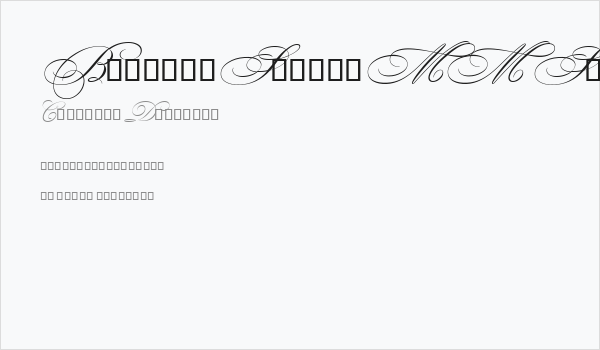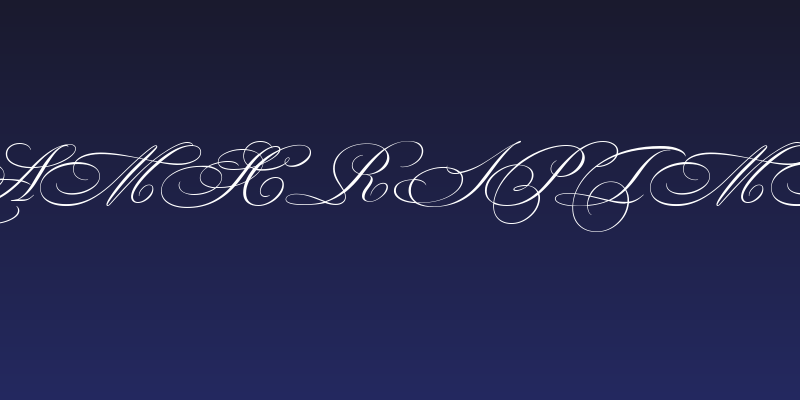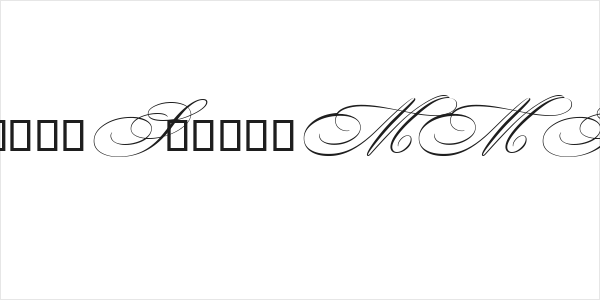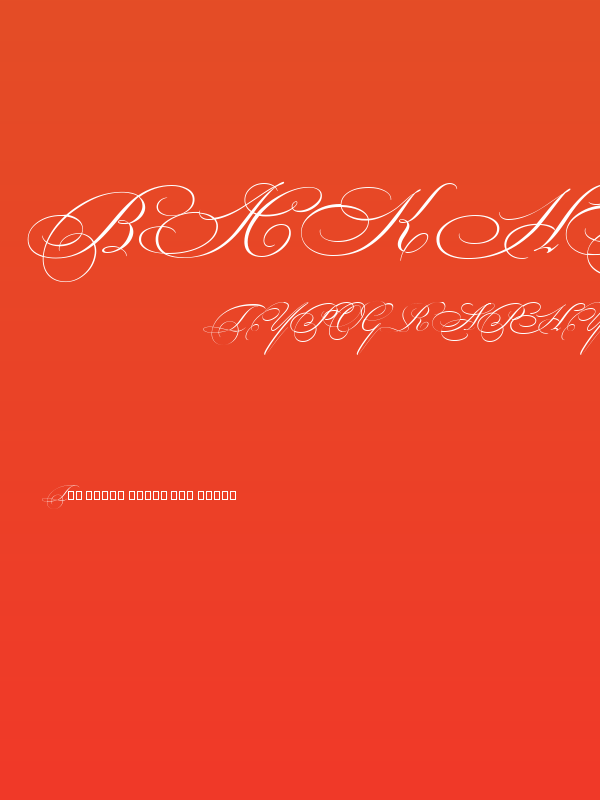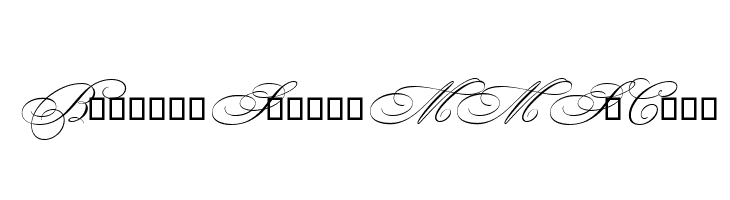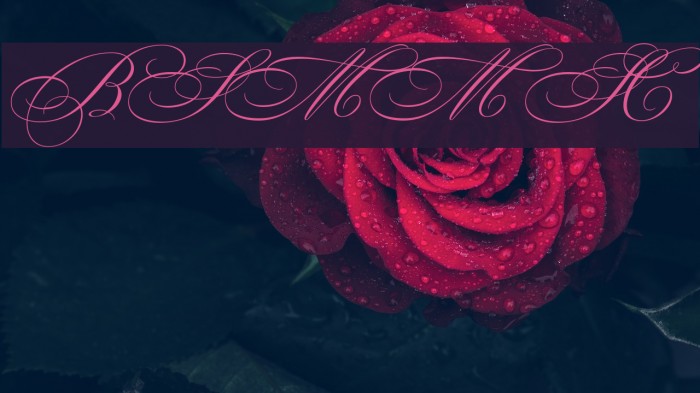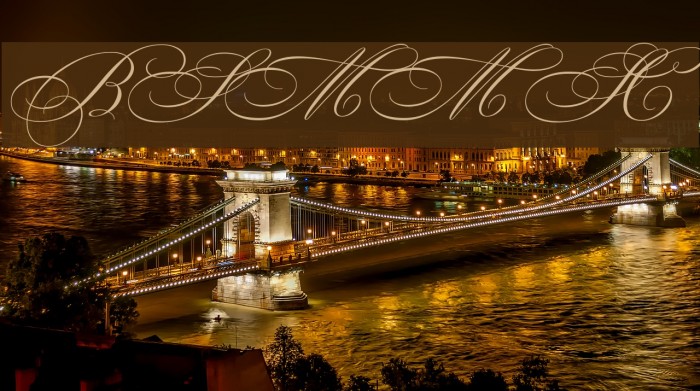
BickhamScriptMM SwCaps Font
BickhamScriptMM SwCaps Description
This elegant script font features ornate, flowing uppercase letters that exude sophistication and grace. The characters are intricately designed with delicate swashes and flourishes, giving them a luxurious and formal appearance. The font's style is reminiscent of classic calligraphy, making it ideal for projects that require a touch of elegance and refinement. The high contrast between thick and thin strokes adds to its visual appeal, while the overall design maintains a sense of harmony and balance. This font is perfect for creating stunning invitations, certificates, and other formal documents.